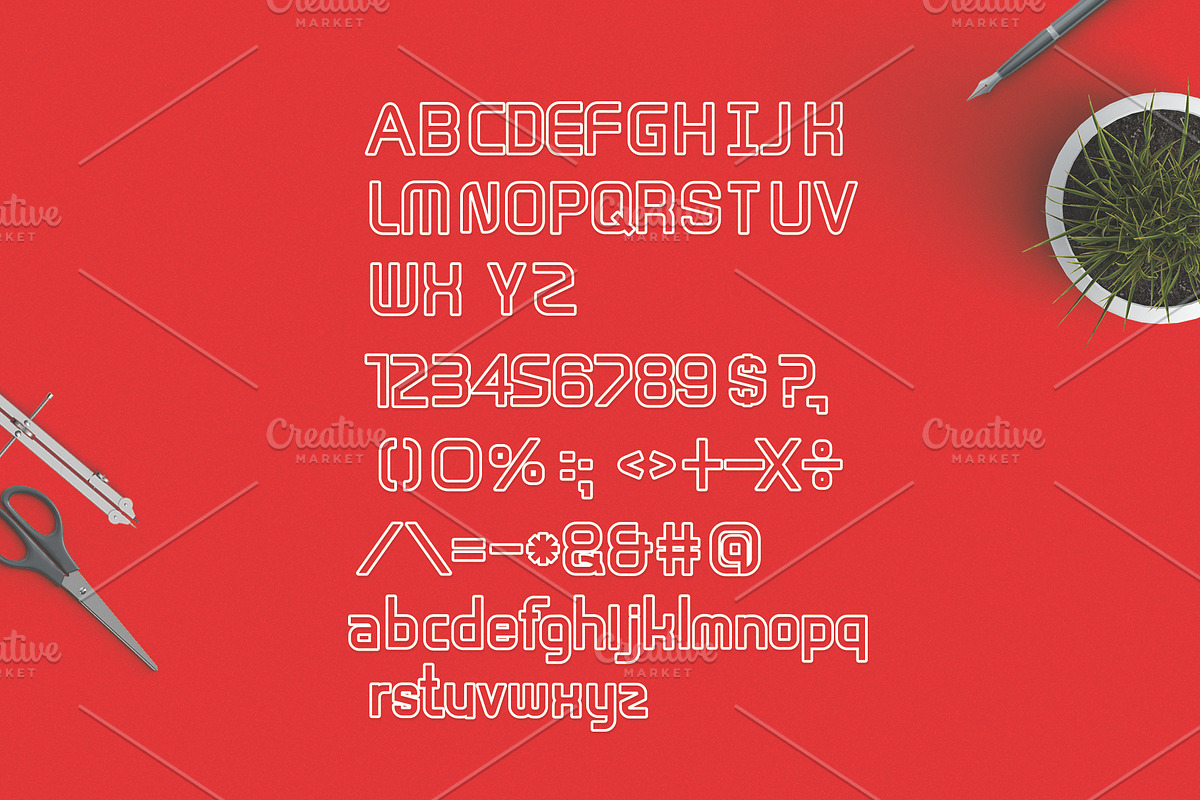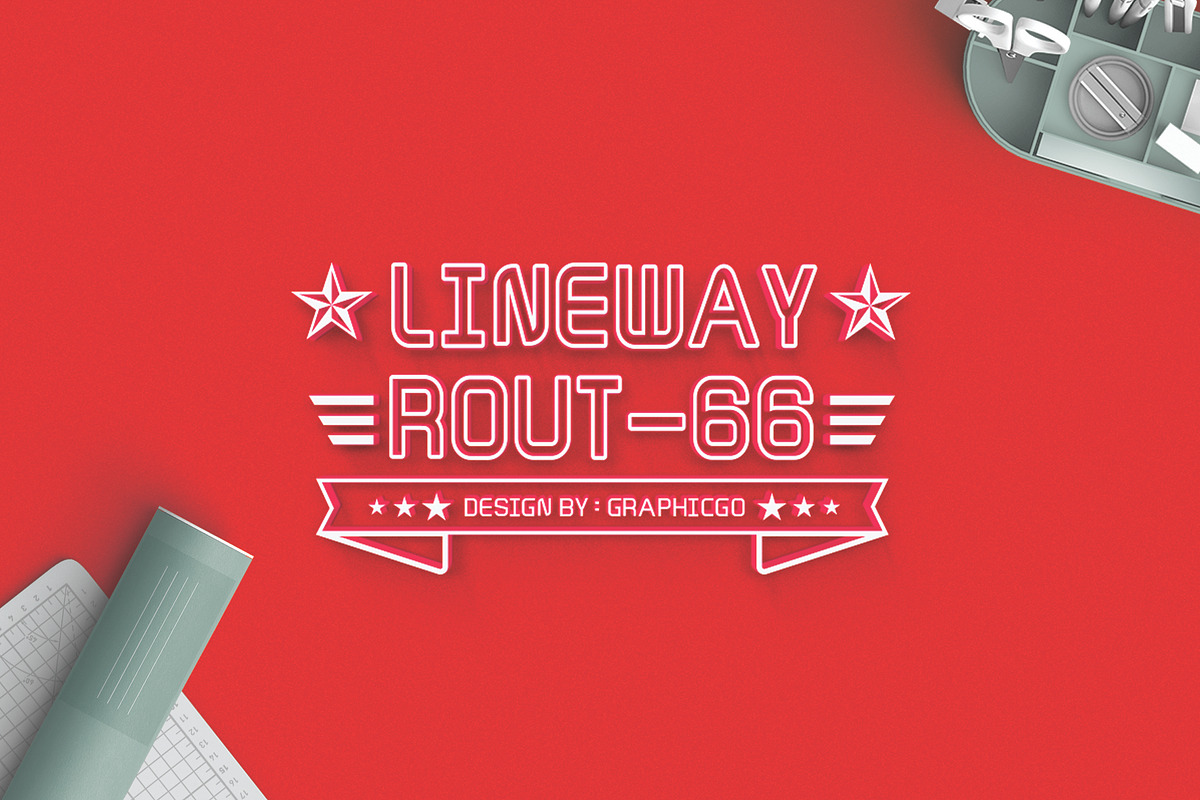
Lineway Font
Lineway is created from Graphicgo-Regular Font (also include in download file) with hand drawn and little grunge line stroke and blank body.You can use it for t-shirt, logo, poster, packaging or invitation. It comes with
Uppercase and Lowercase